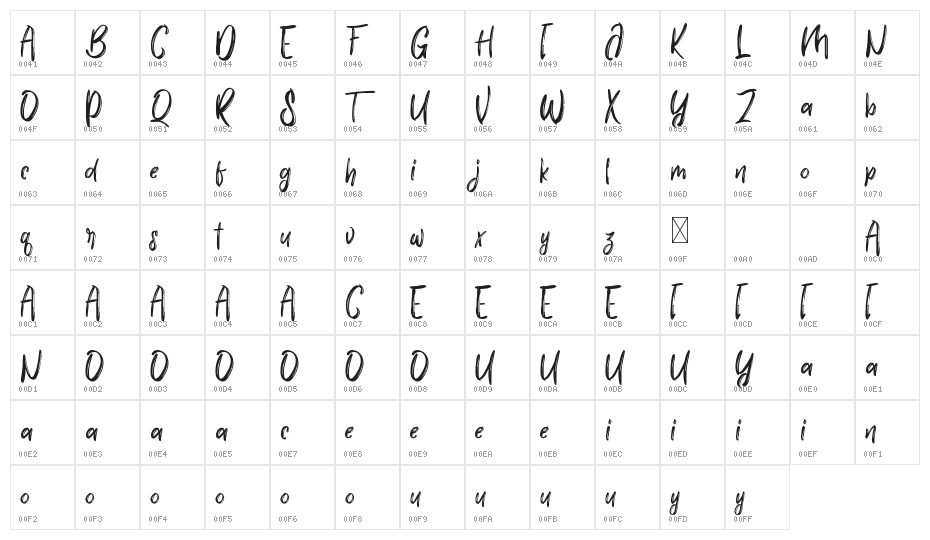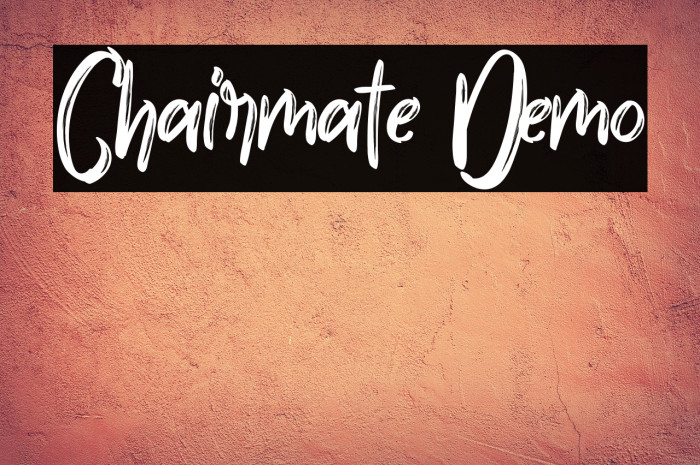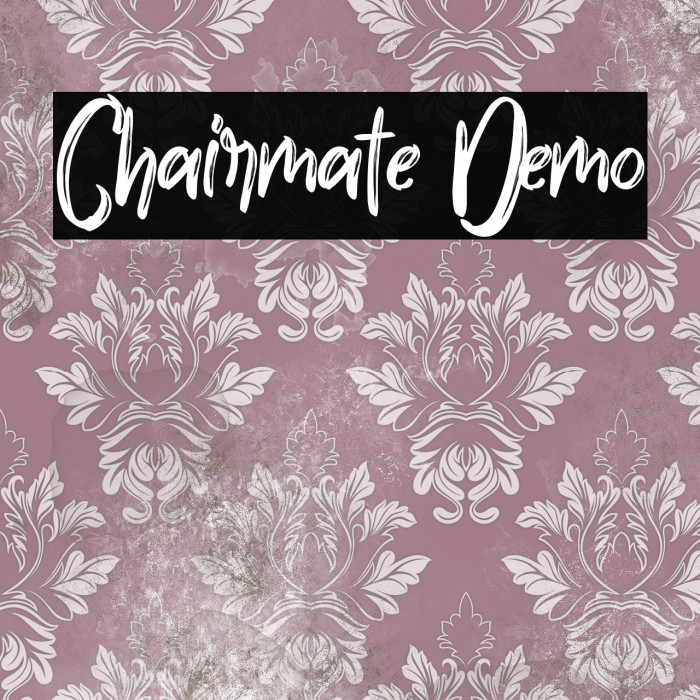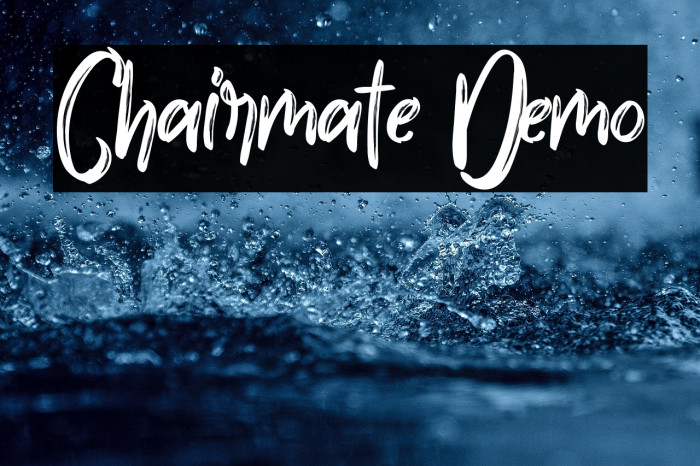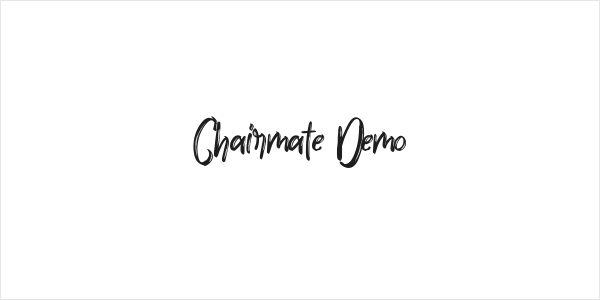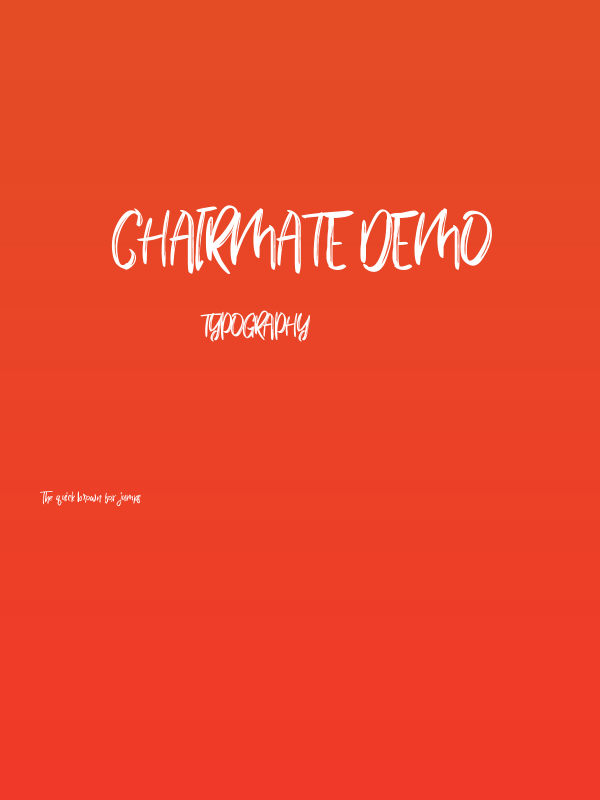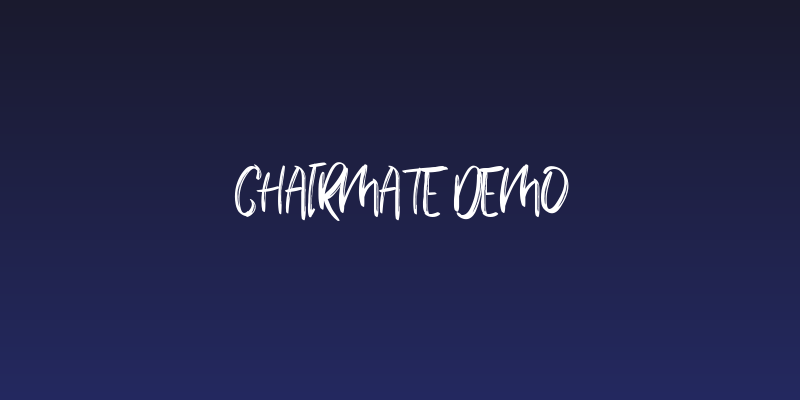
Chairmate Demo Font
Chairmate Demo Description
This font exhibits a bold, expressive style with a handwritten appearance. The strokes are thick and dynamic, giving it a lively and energetic feel. The characters are slightly slanted, adding to the casual and informal vibe. The uppercase and lowercase letters maintain a consistent flow, while the numbers and special characters integrate seamlessly with the overall design. The font's playful nature makes it suitable for creative and artistic projects, where a personal touch is desired.
| Proposed Projects | Ideal for greeting cards, posters, branding projects, and social media graphics where a personal and artistic touch is needed. |